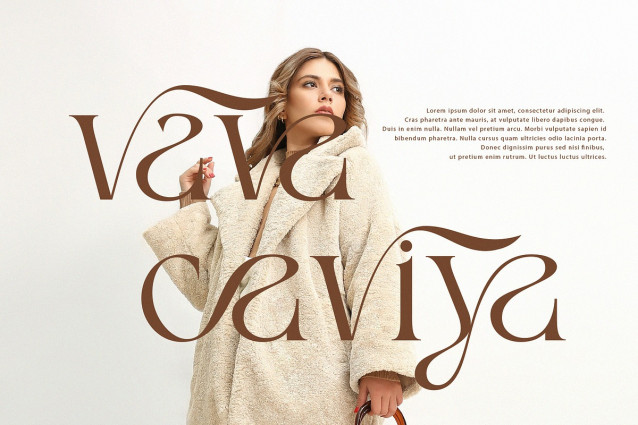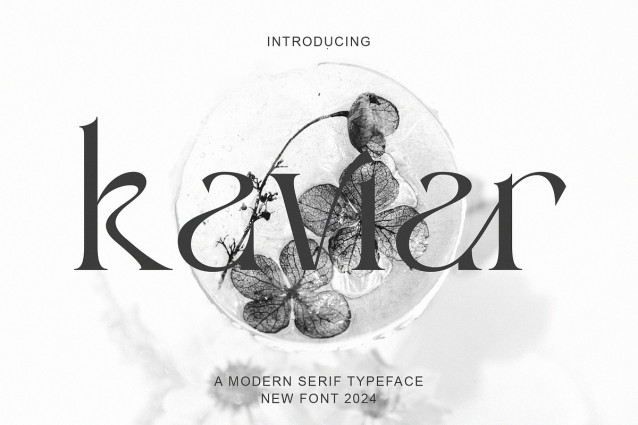
Kaviar Font
Kaviar Font An elegant and modern serif typeface. With its modern and minimalist appearance, kaviar brings a luxurious and clean style to your projects such as websites, modern logos, branding identities, social media quotes, wedding stationery and various other needs!
kaviar features unique and classy capital letters A to Z and comes with ligatures and alternate letters, making it a beautiful font that can be adapted to any large project you desire.